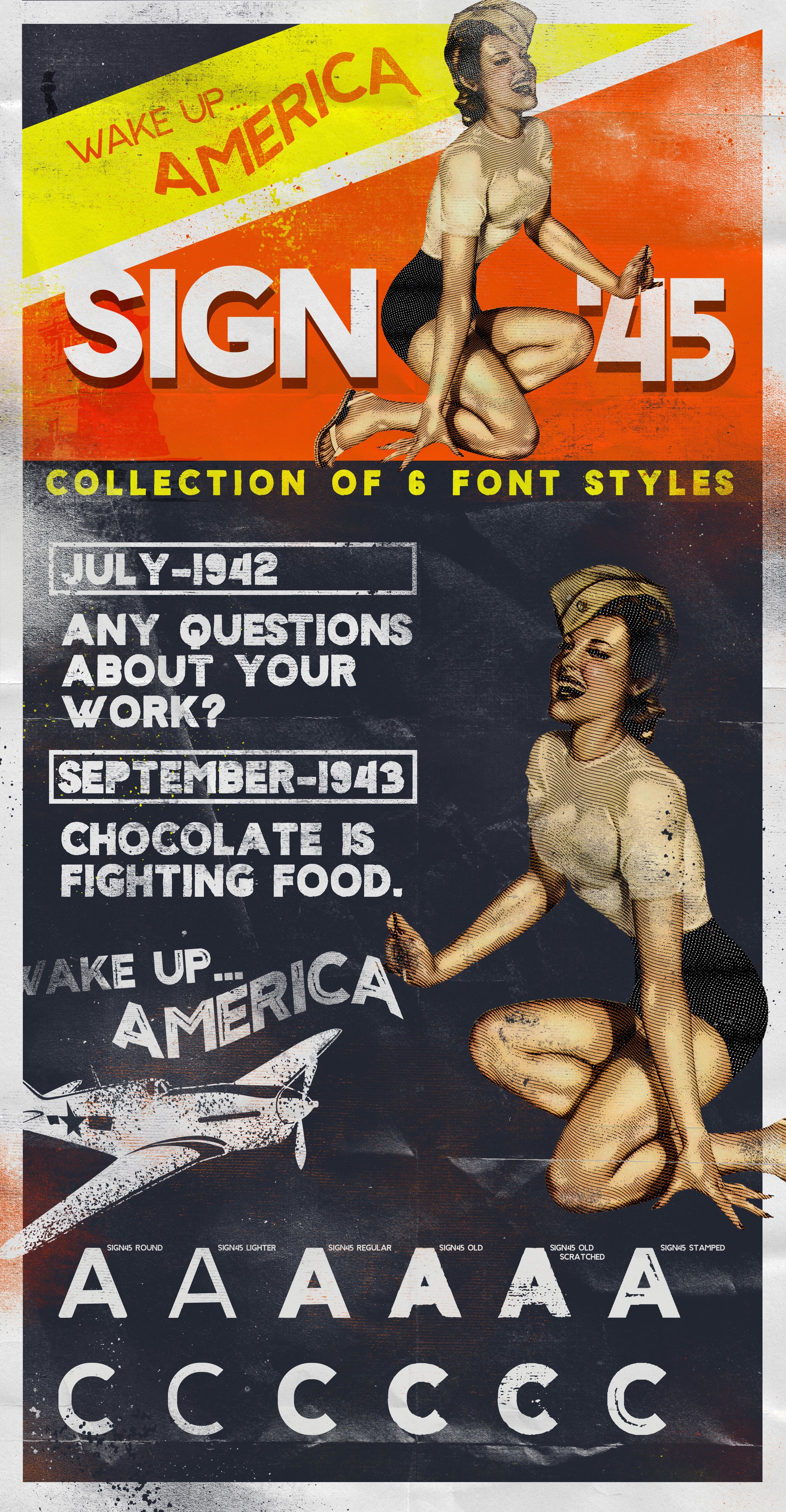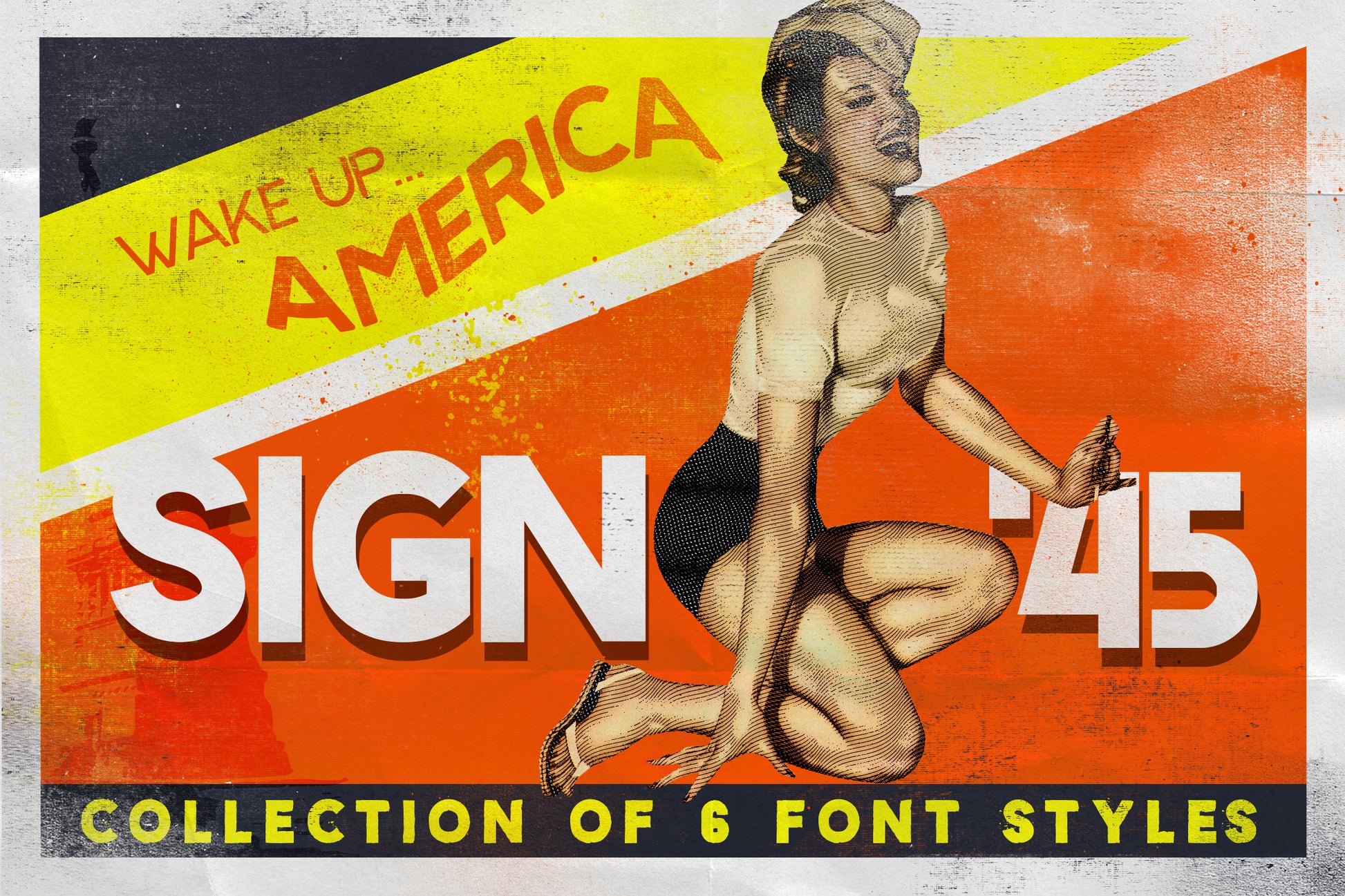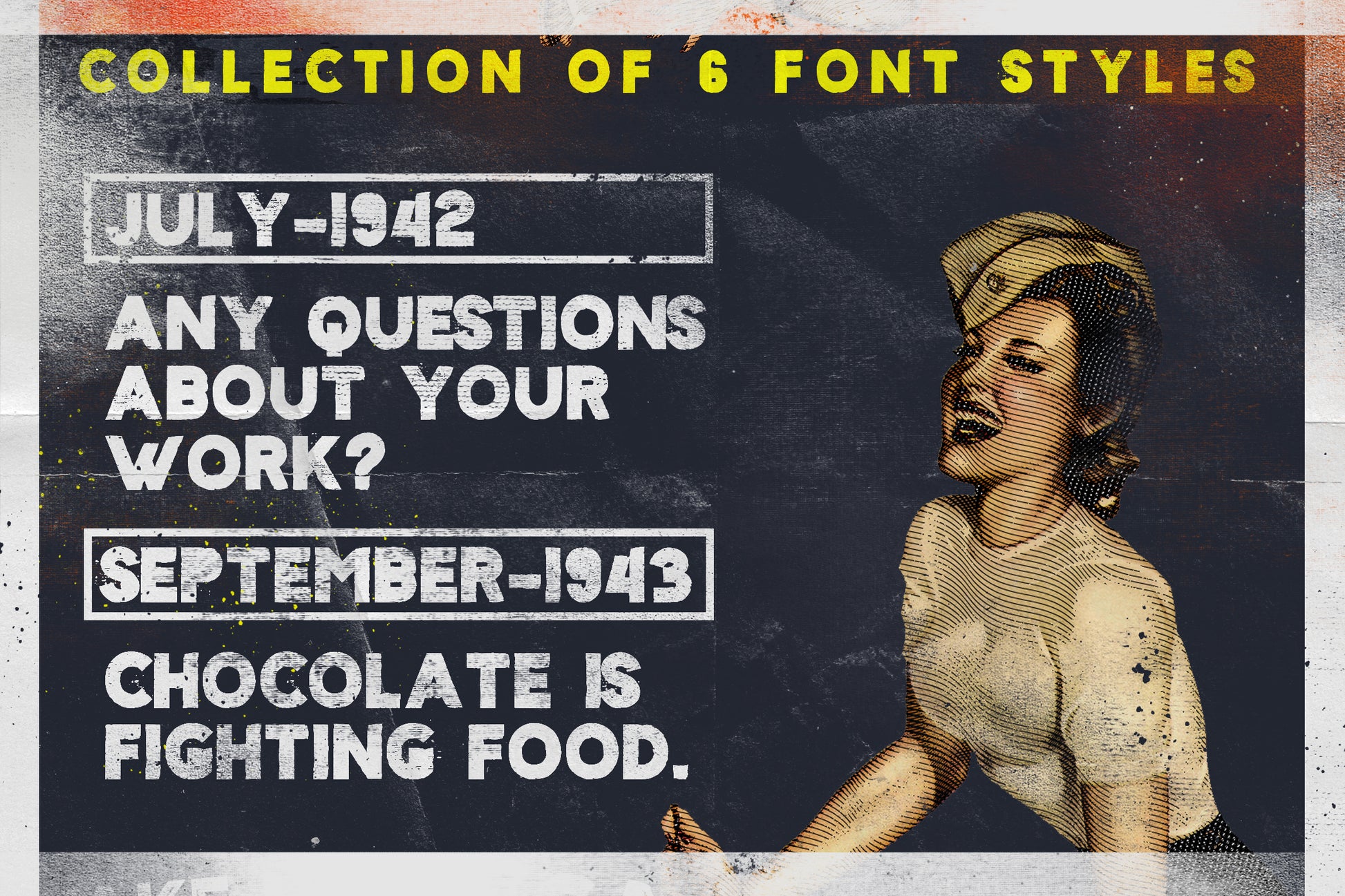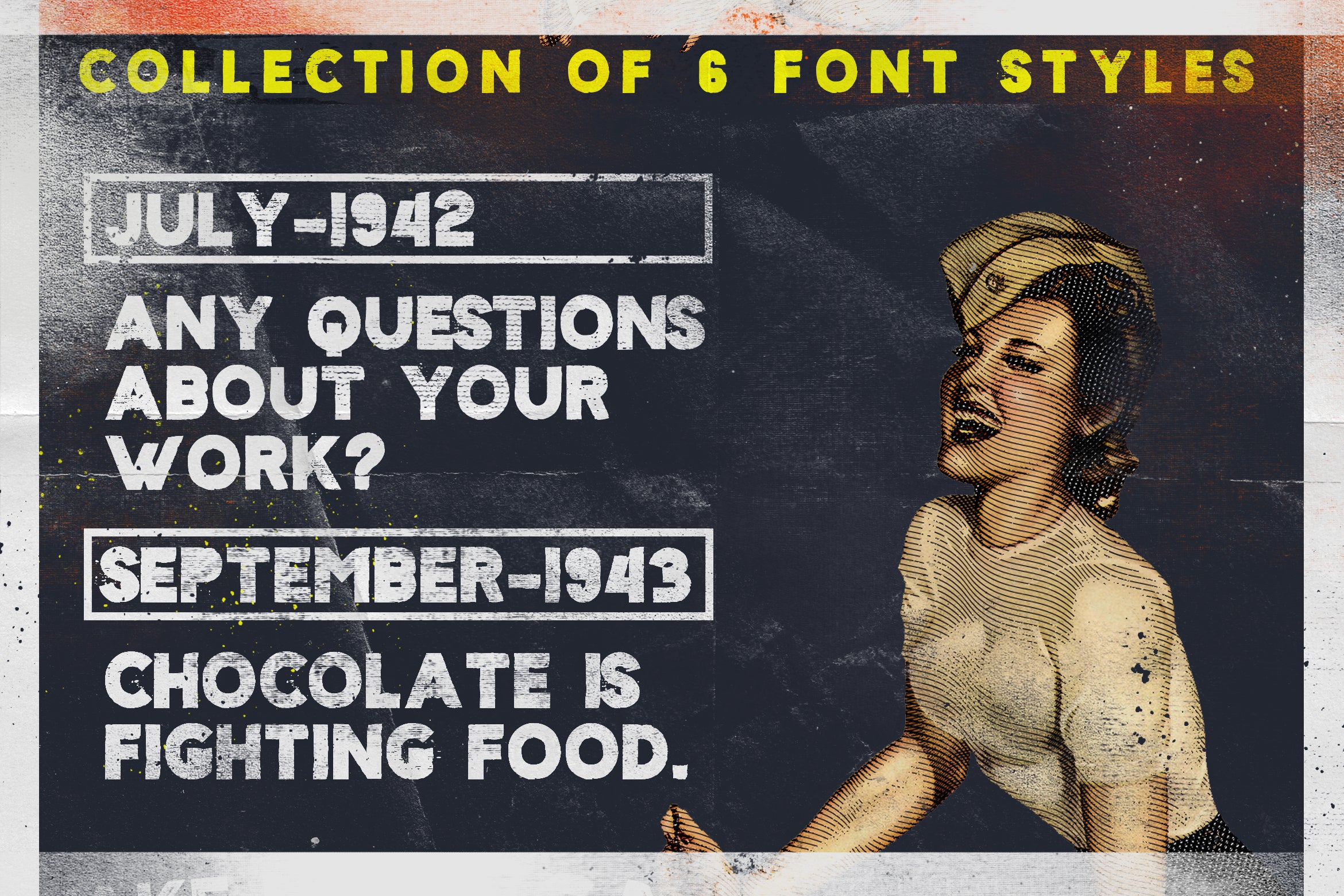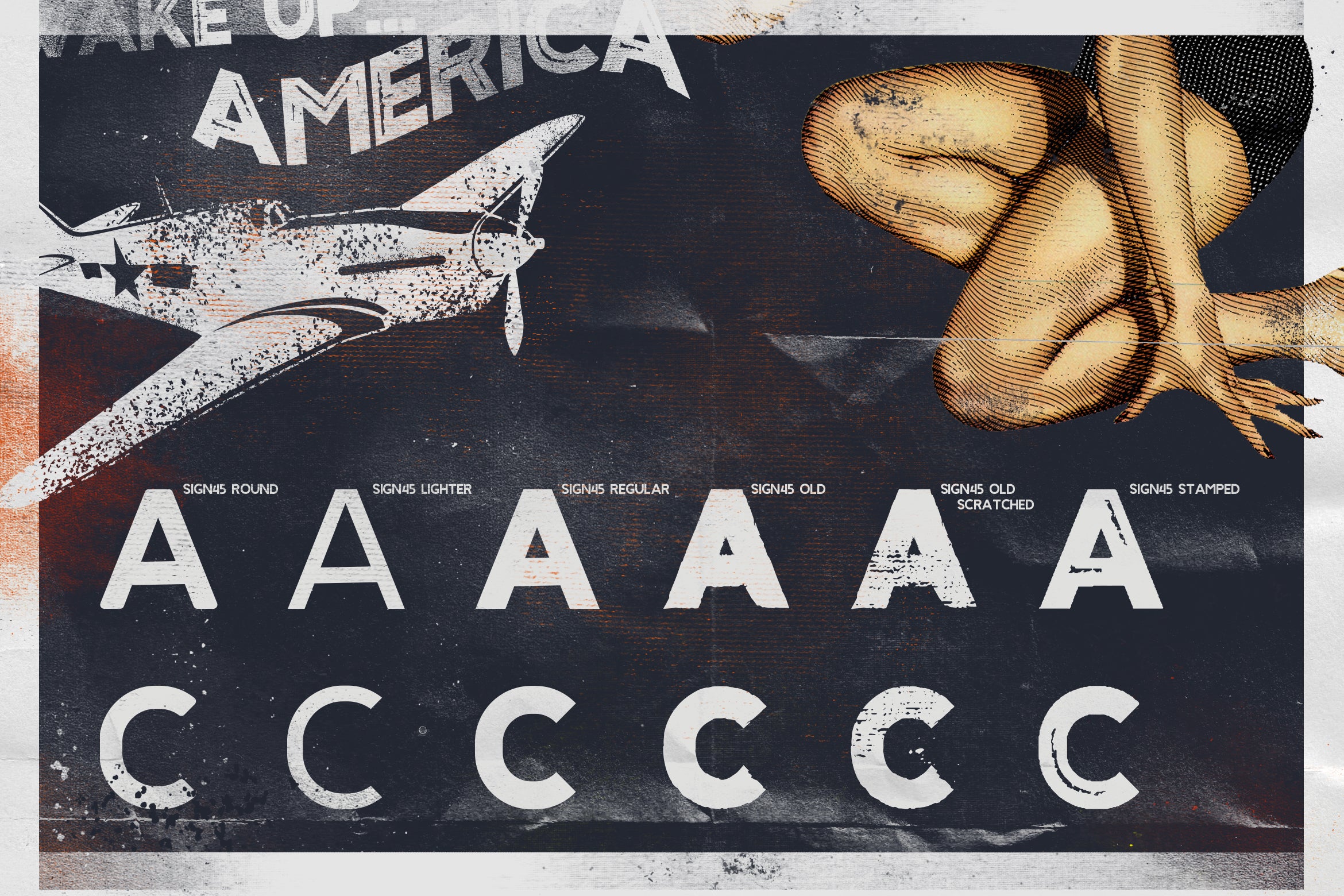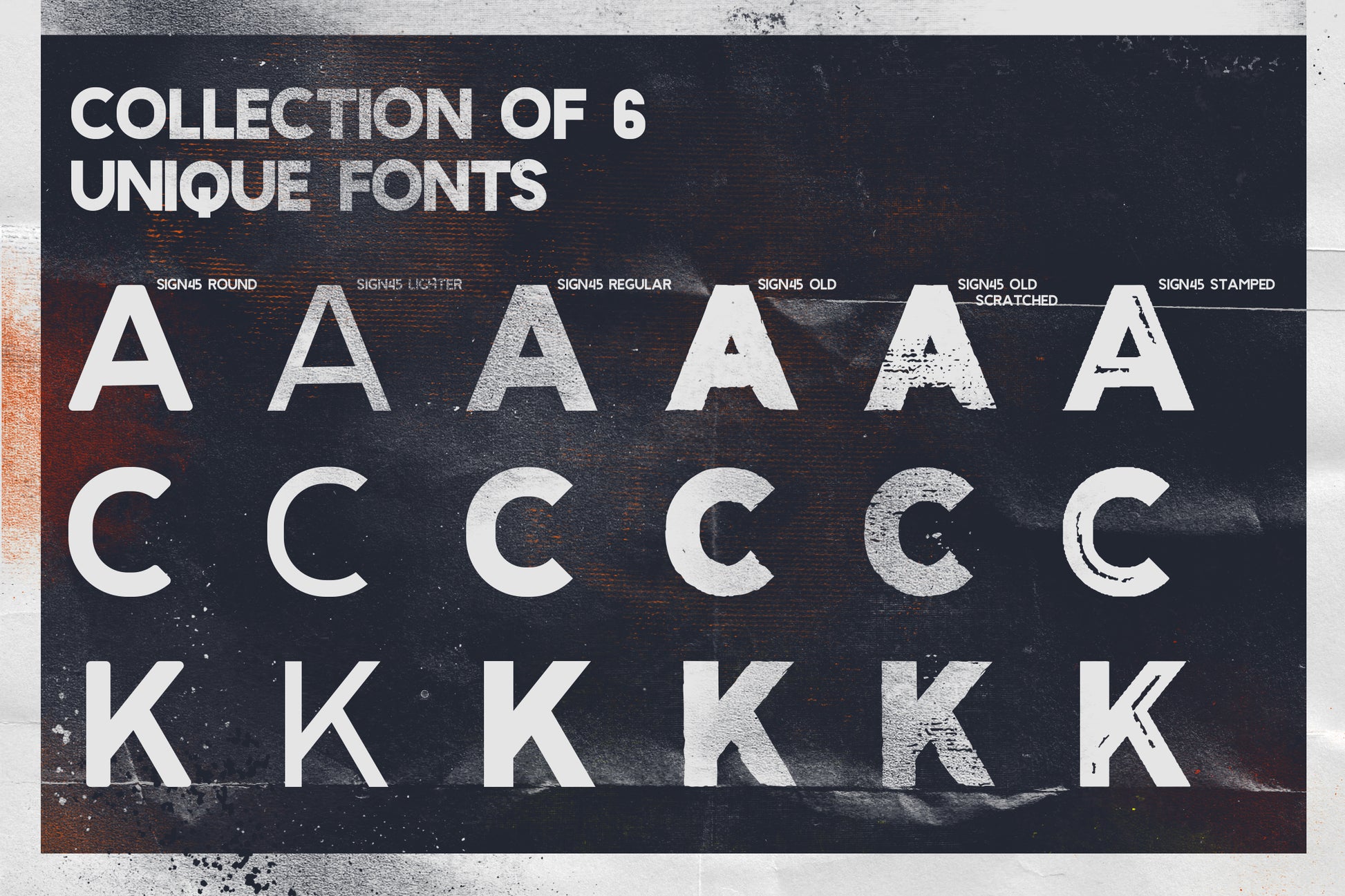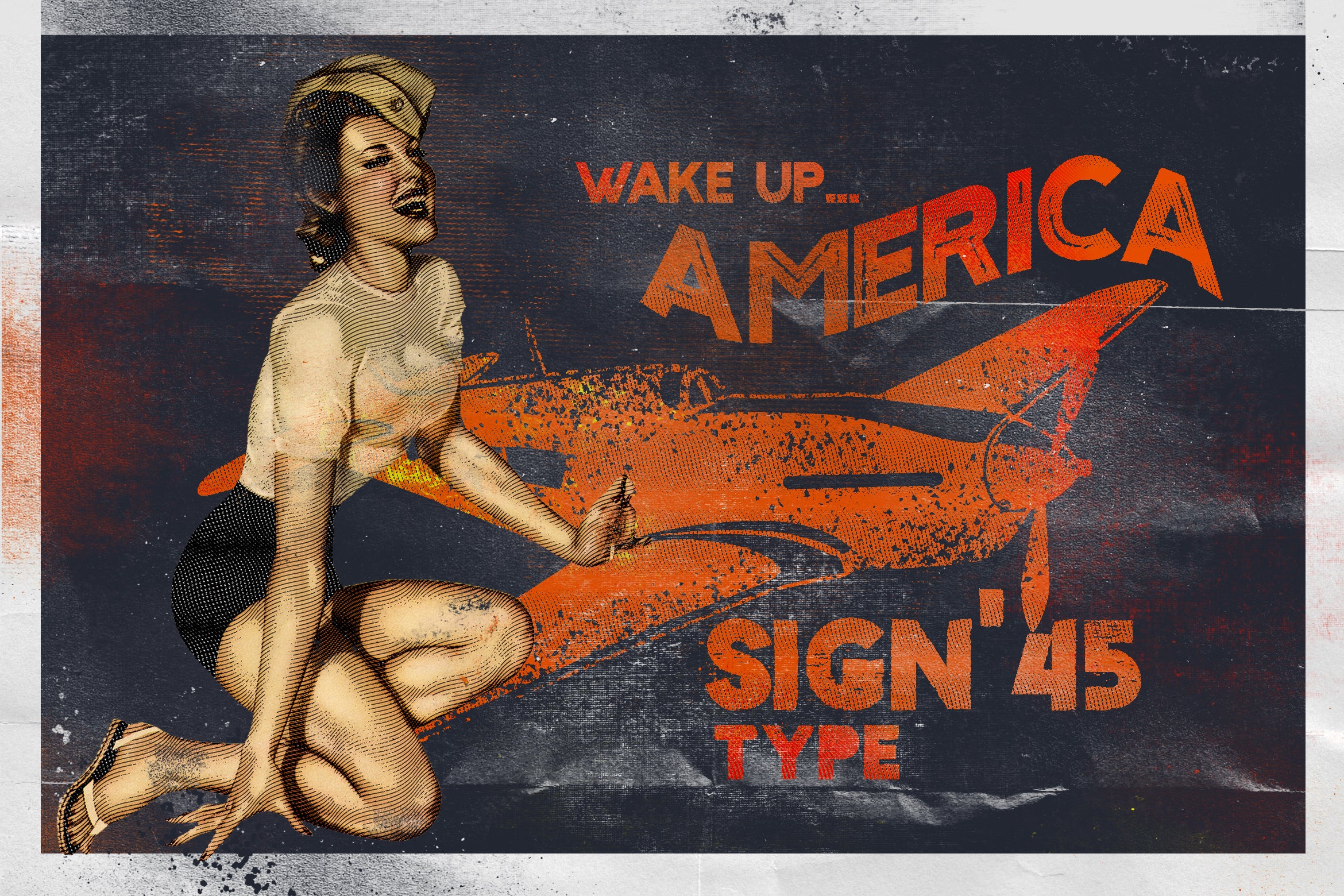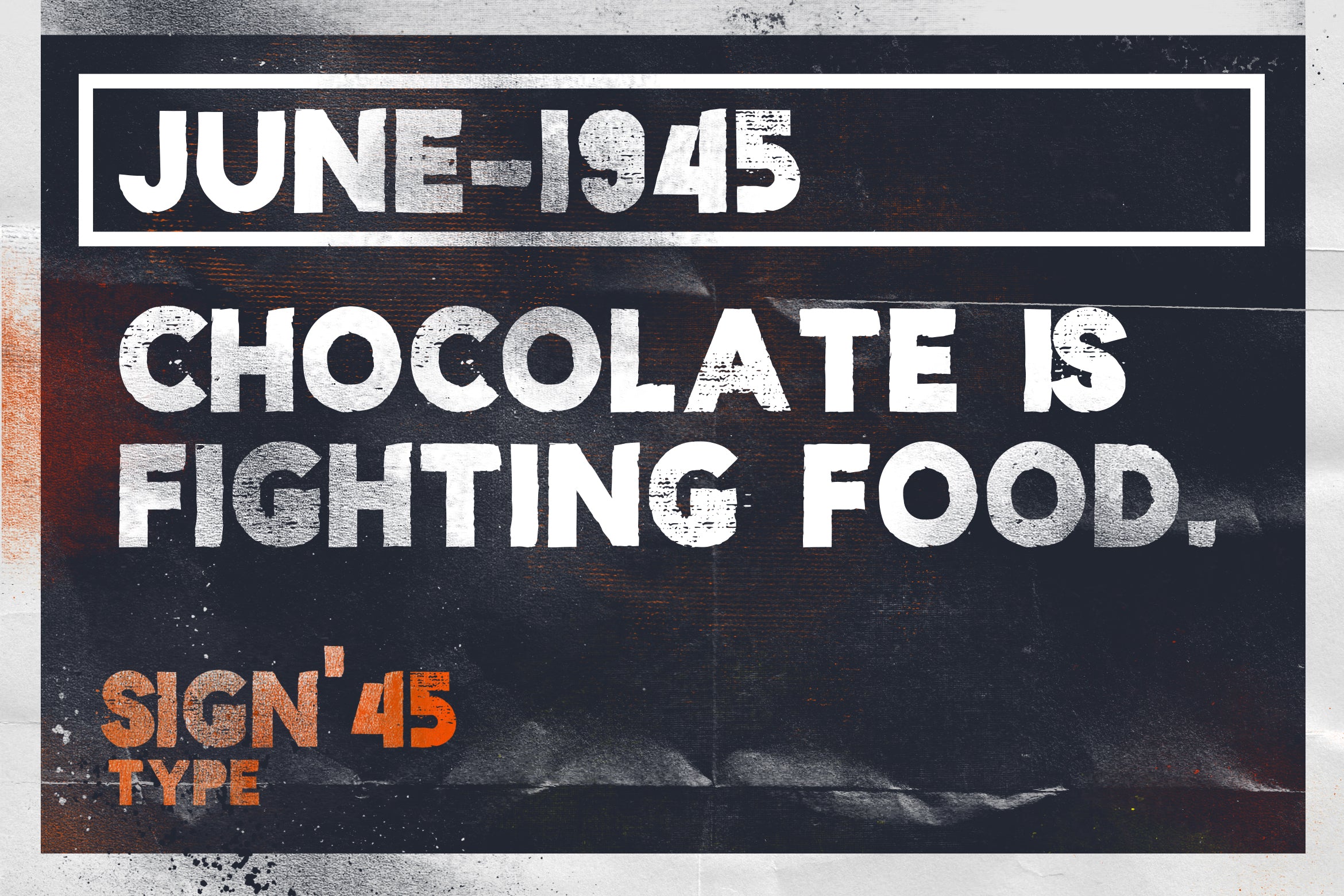
Sign '45 Typeface
With Sign '45 Typeface you can make it easier to convey the message in your design. Use for awesome display, labeling, clothing, movie sceen, poster, movie title, gigs, album covers, logos, and much more.
Font has 6 styles and it is ideal for retro and vintage projects, from clear designs to rough look designs.